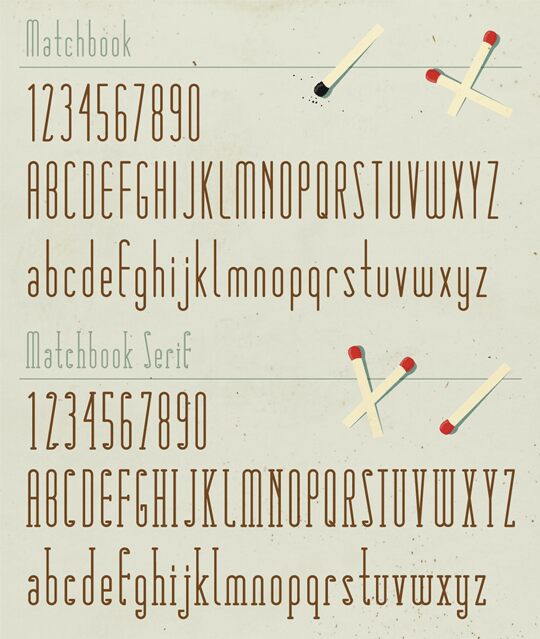
Matchbook Serif by One by Four is a free retro display font built from tall, monoline letters and matchstick-like details. Rounded bends soften the narrow forms. Small bulb tips and short crossbars make the strokes resemble pinned rods or spent matches, giving the design a spare, handmade wit.
It is most convincing on matchbox packaging, where the thin upright shapes can become part of the product illustration rather than simple labeling. The match-head motif suits cafe branding, gig posters, and editorial covers centered on fire, craft, or small-scale ephemera.